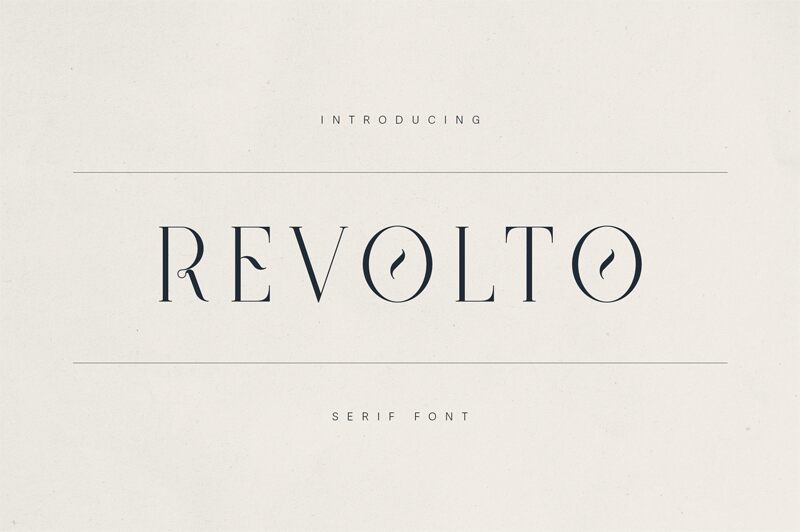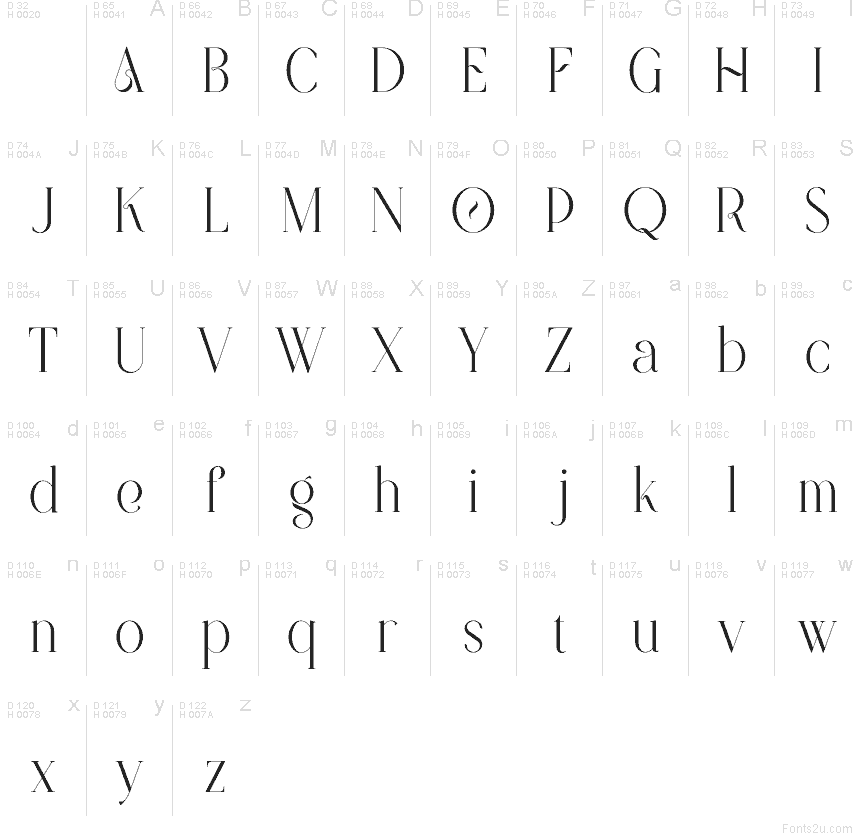
Revolto Demo Regular
Revolto font by VPcreativeshop is a free serif typeface with a distinctly theatrical streak. Long, razor-fine strokes melt into inky slabs, while those dramatic curves feel like they’ve been drawn with a calligrapher’s brush rather than a mouse. The result is a letterform that’s both aristocratic and a little rebellious, giving headlines and wordmarks a luxe, editorial punch without feeling stiff.
Using Revolto, every short phrase turns into a visual statement, so it shines on fashion branding, perfume or cosmetics packaging, magazine covers, posters, upscale restaurant logos, and bold wedding invitations. This free font works best at larger sizes where its slender details and swooping shapes can breathe. For body copy or captions, pair Revolto with a clean geometric sans to keep layouts readable while letting the serif handle the drama.